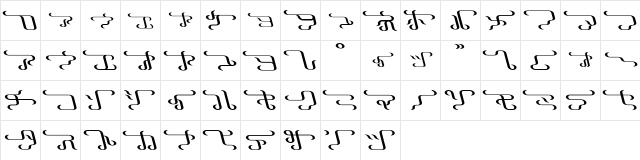
Alarla Regular
Design Context for Alarla Typeface
Alarla offers clean, dependable letterforms without strong stylistic allegiance, making it a practical choice for designers who need flexibility.
Pro Tip: Use Alarla in both headline and body roles to test its range before committing to a single application.